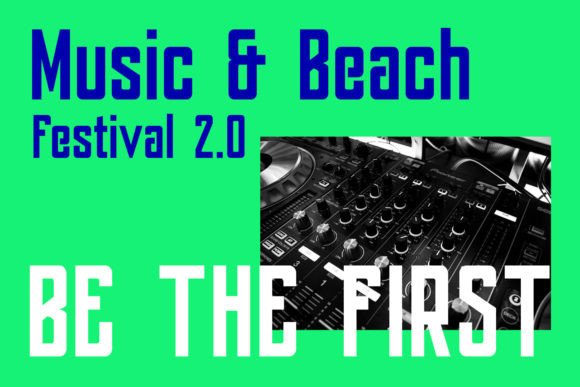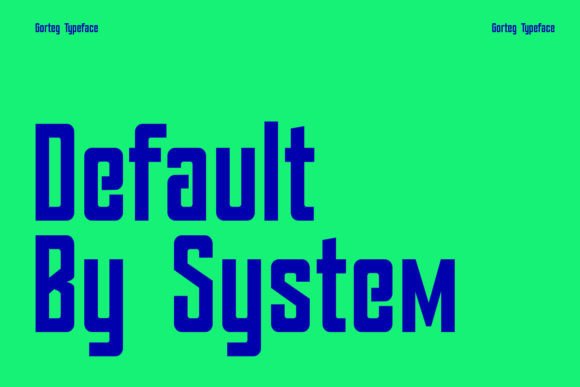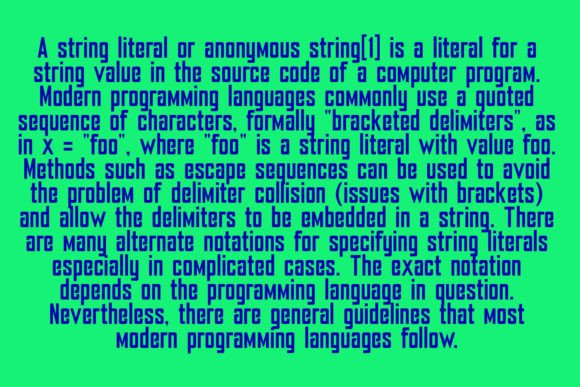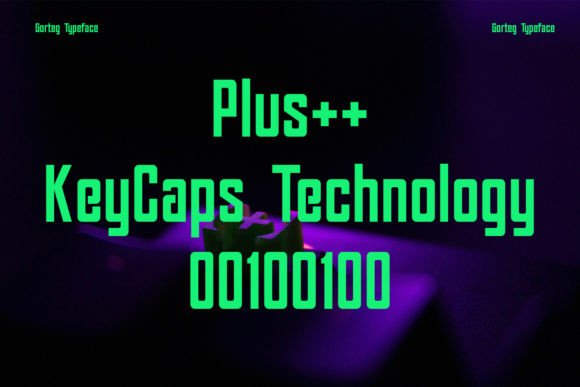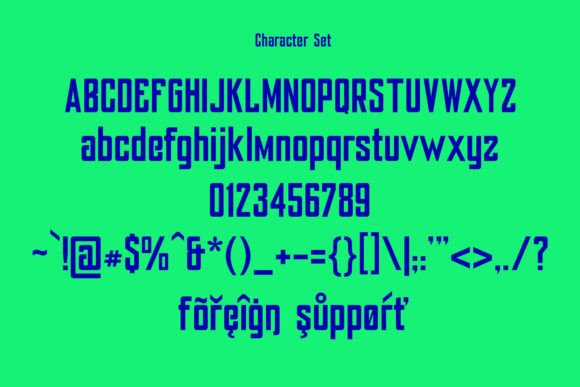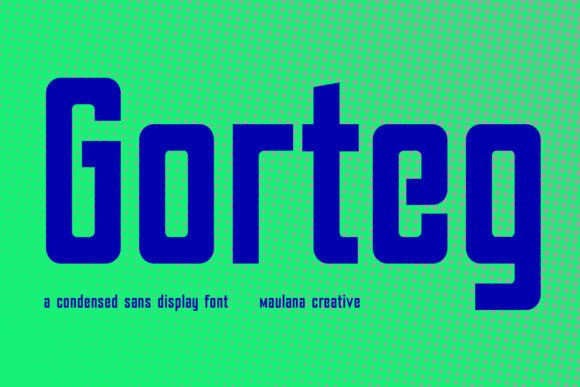
Introducing Gorteg Condensed Sans Display Font: Elevate Your Designs with Industrial Flair
Are you on the hunt for a font that exudes industrial vibes with a dash of creativity? Look no further than the Gorteg Condensed Sans Display Font. This bold and fun font is designed to take your designs to the next level, boasting a unique blend of condensed sans-serif style and playful character. With its built-in ligatures and alternates, Gorteg offers a wide range of creative possibilities for designers and crafters alike.
Key Features of Gorteg Font
- Industrial Aesthetic: Gorteg’s condensed sans-serif design gives it a distinctly industrial feel, perfect for projects that require a strong, modern look.
- Multilingual Support: With support for over 100 languages, Gorteg is an excellent choice for global brands and projects that require a font with broad linguistic capabilities.
- Ligatures and Alternates: The font comes with built-in ligatures and alternates, allowing you to add a touch of personality to your text and make it stand out.
- Versatile: Gorteg is suitable for a wide range of applications, from logo design and social media graphics to movie titles, book titles, and even long-form text.
Gorteg’s versatility makes it an excellent choice for various design projects. Here are some ideas to get you started:
- Logo Design: Create a bold, eye-catching logo that makes a statement with Gorteg’s condensed sans-serif design.
- Social Media Graphics: Use Gorteg to add a modern touch to your social media graphics, from Facebook posts to Instagram stories.
- Movie and Book Titles: Give your movie or book titles a professional, high-end look with Gorteg’s industrial-chic design.
- Long-Form Text: While Gorteg excels at short, impactful text, it’s also suitable for longer-form content, making it a great choice for body text or secondary text.
Pairing Gorteg with Other Fonts
One of the best things about Gorteg is its ability to pair well with other fonts, particularly scripts and serifs. Here are some tips for pairing Gorteg with other fonts:
- Script Fonts: Pair Gorteg with a script font for a striking contrast between bold, industrial text and elegant, cursive script.
- Serif Fonts: Combine Gorteg with a serif font for a sophisticated, modern look that’s perfect for body text or secondary text.
In conclusion, Gorteg Condensed Sans Display Font is a versatile, industrial-chic font that’s perfect for designers and crafters looking to elevate their designs. With its bold stroke, fun character, and multilingual support, Gorteg is an excellent choice for a wide range of projects. Whether you’re working on a logo design, social media graphics, or long-form text, Gorteg is sure to make a statement. So why wait? Get creative with Gorteg today!